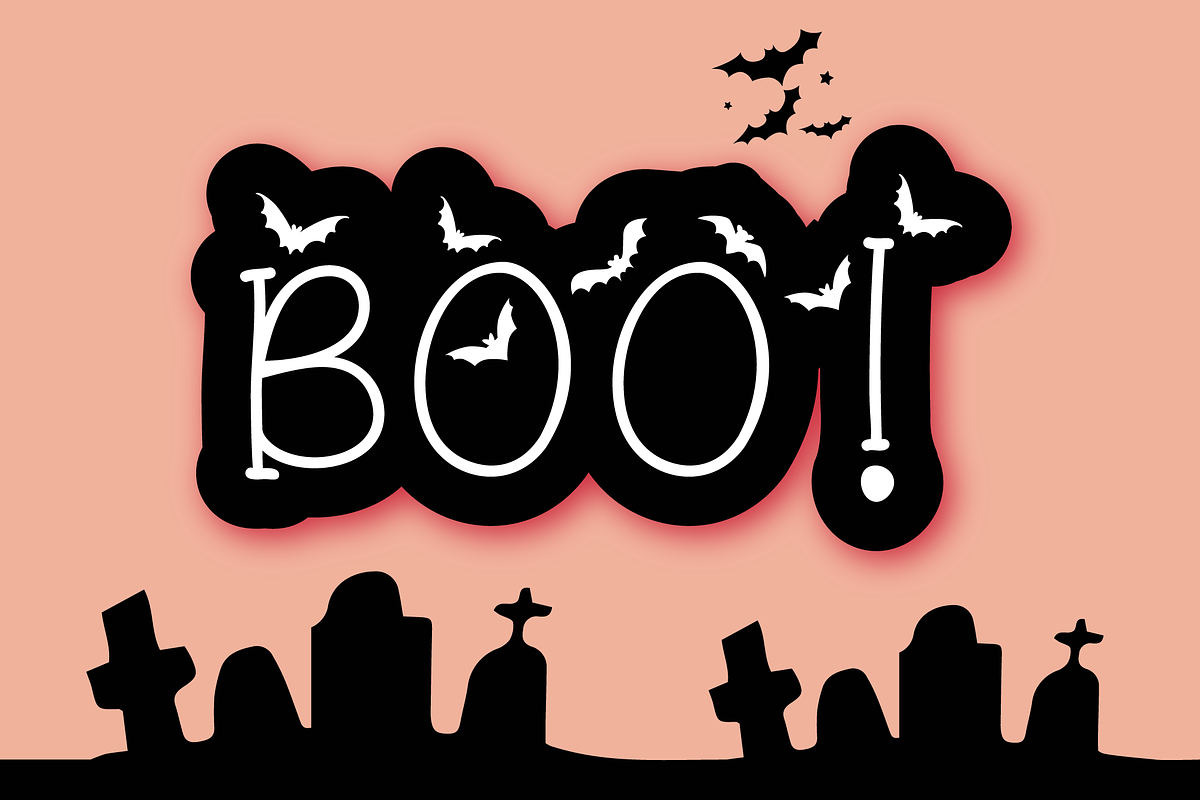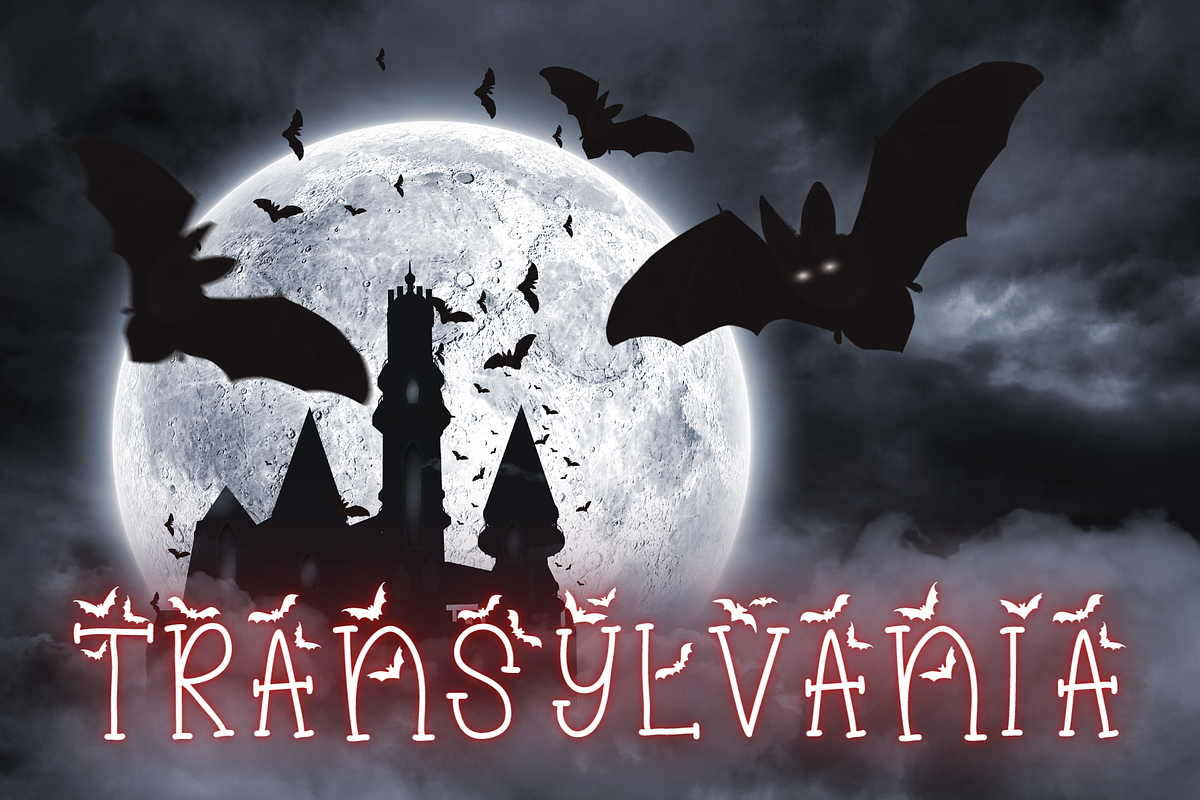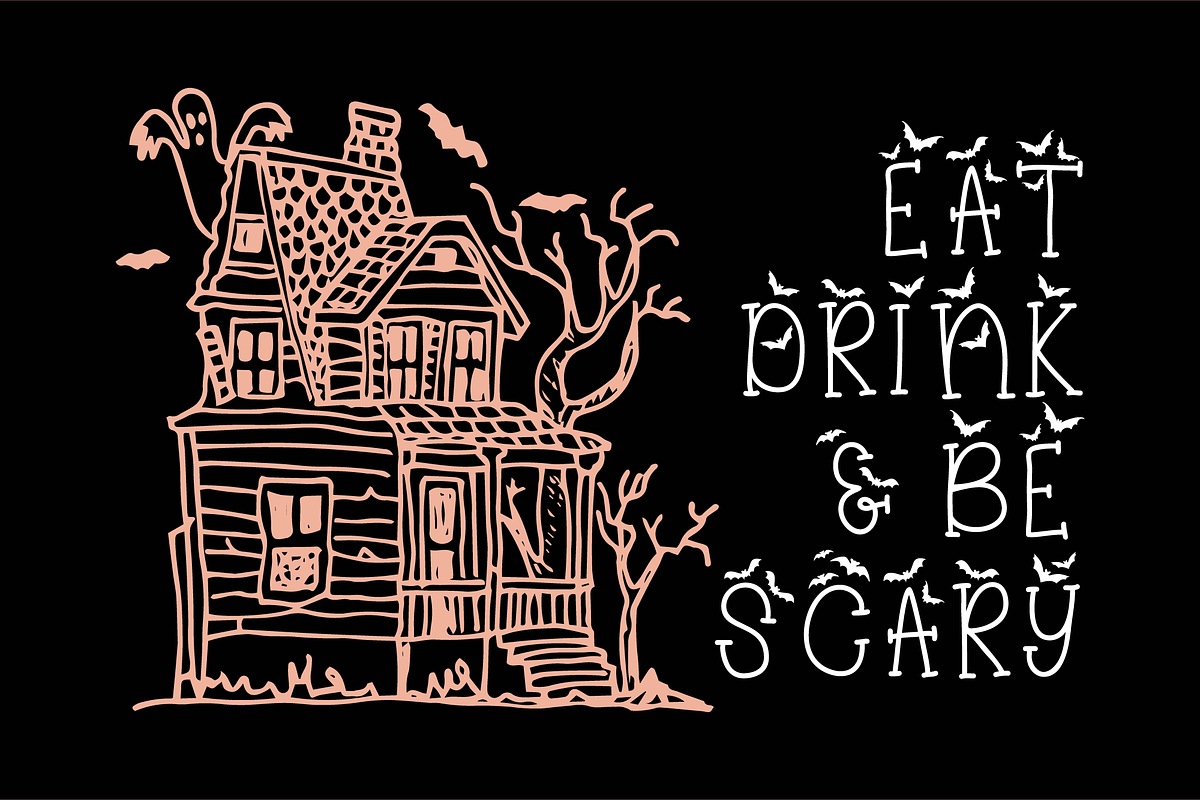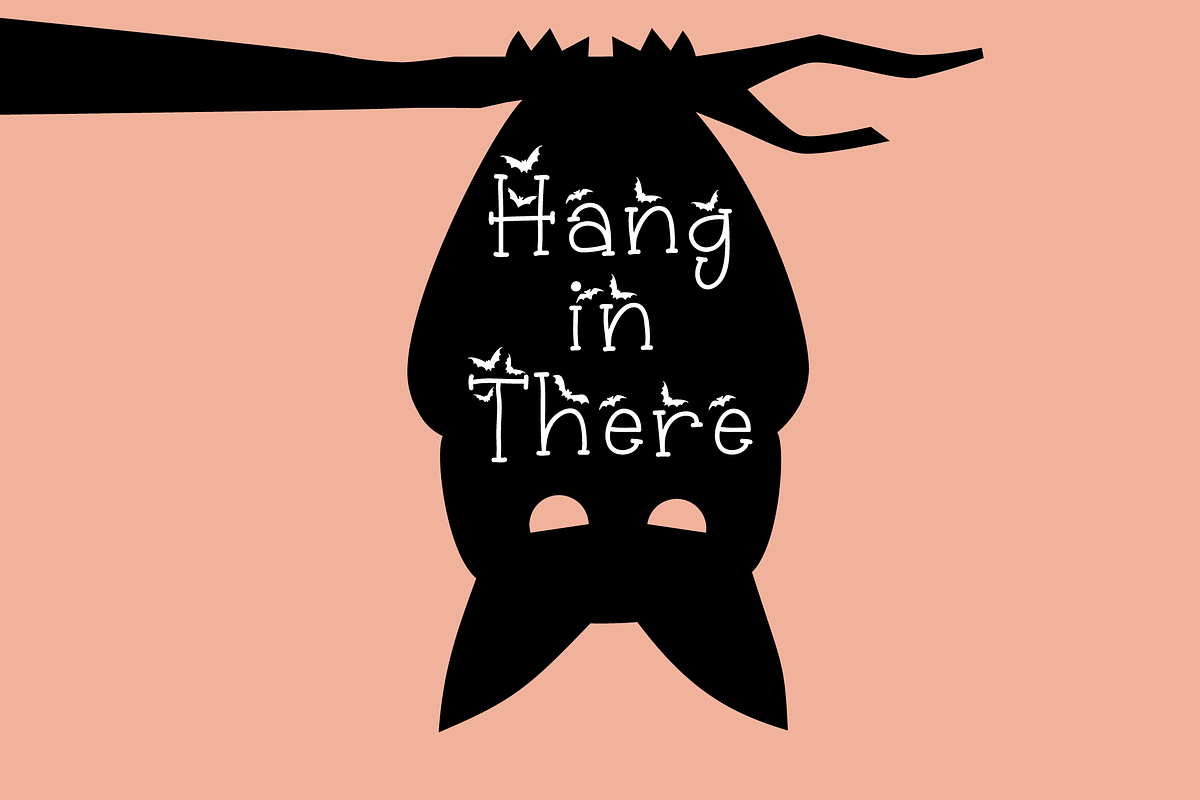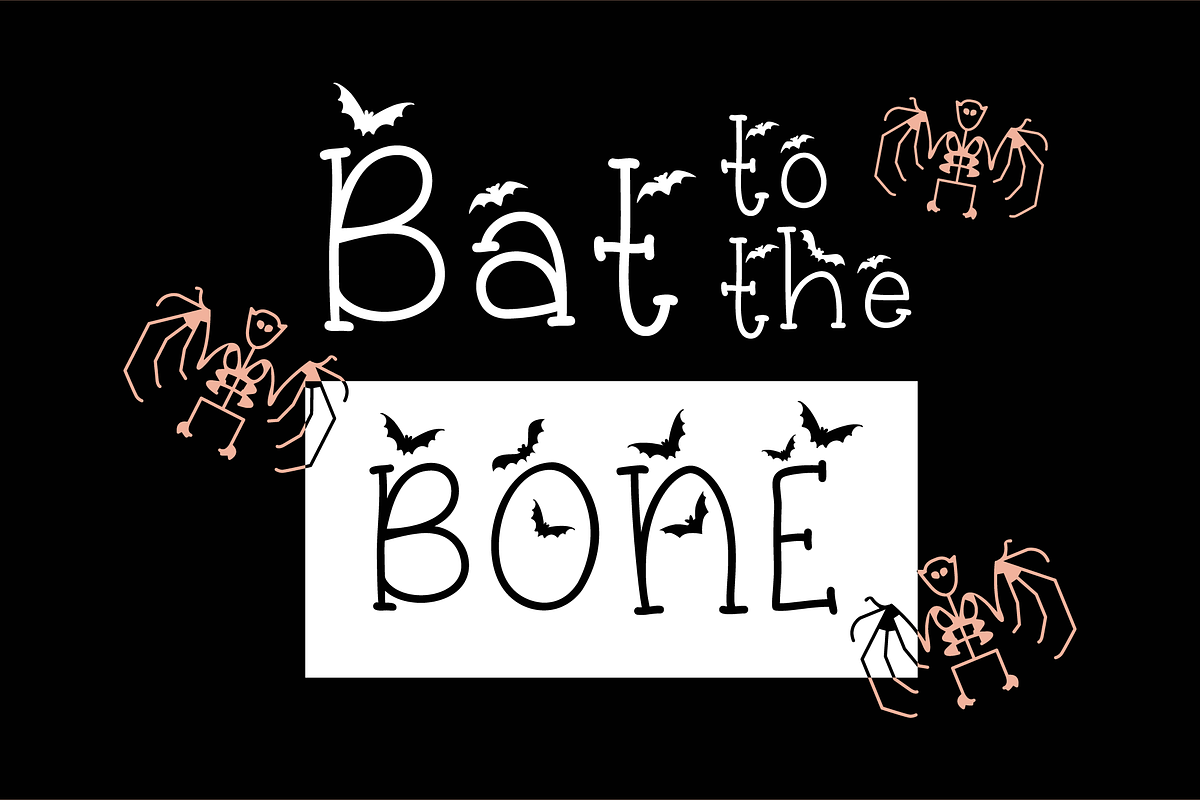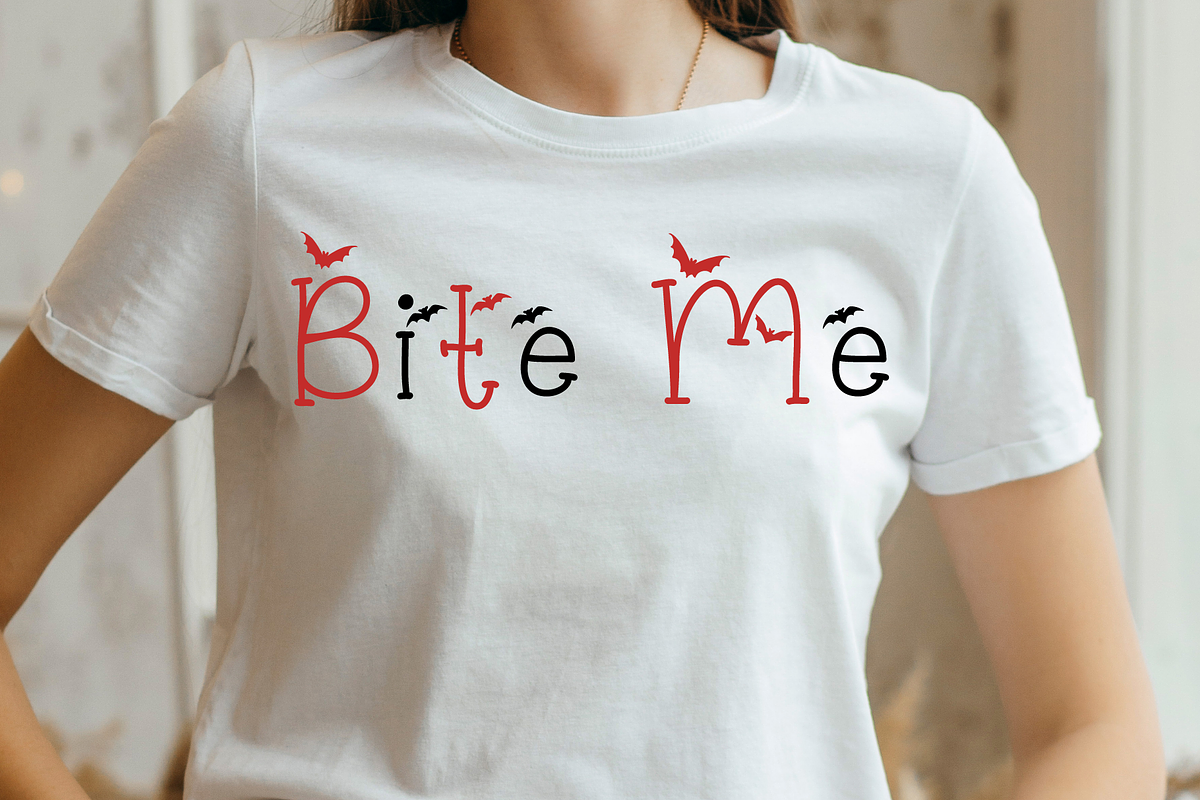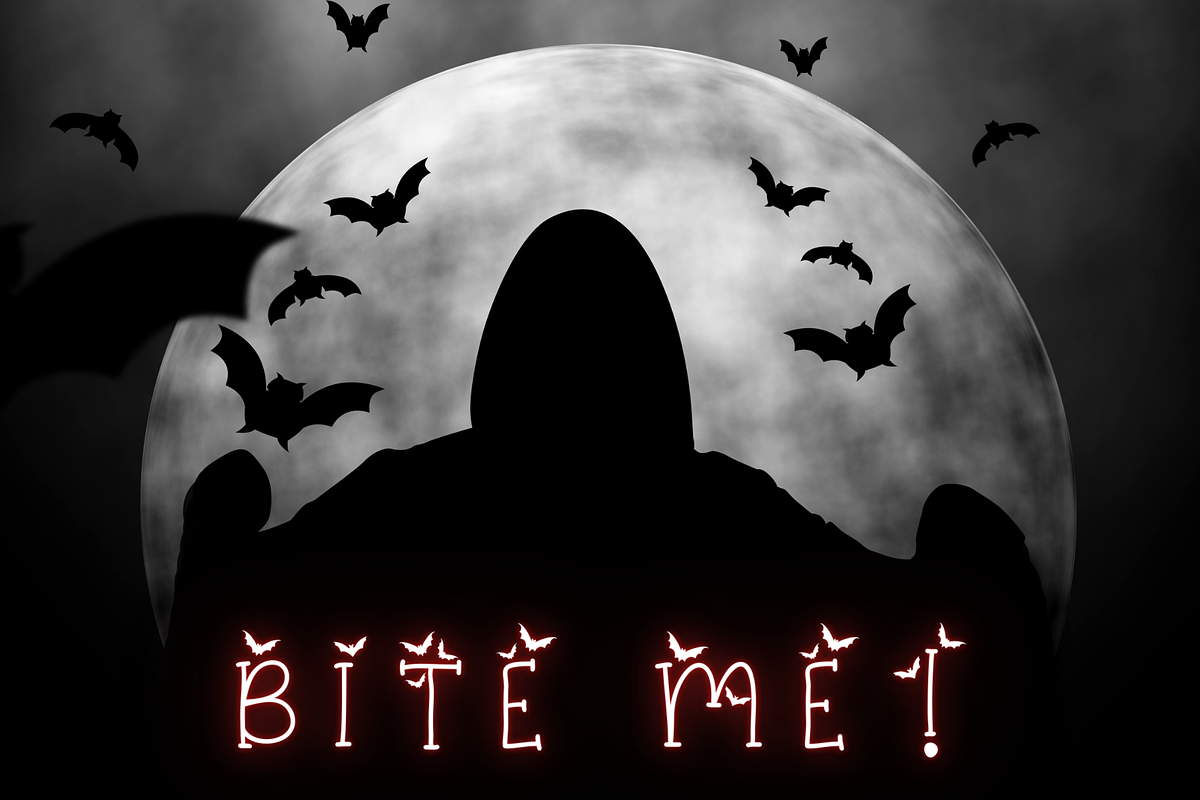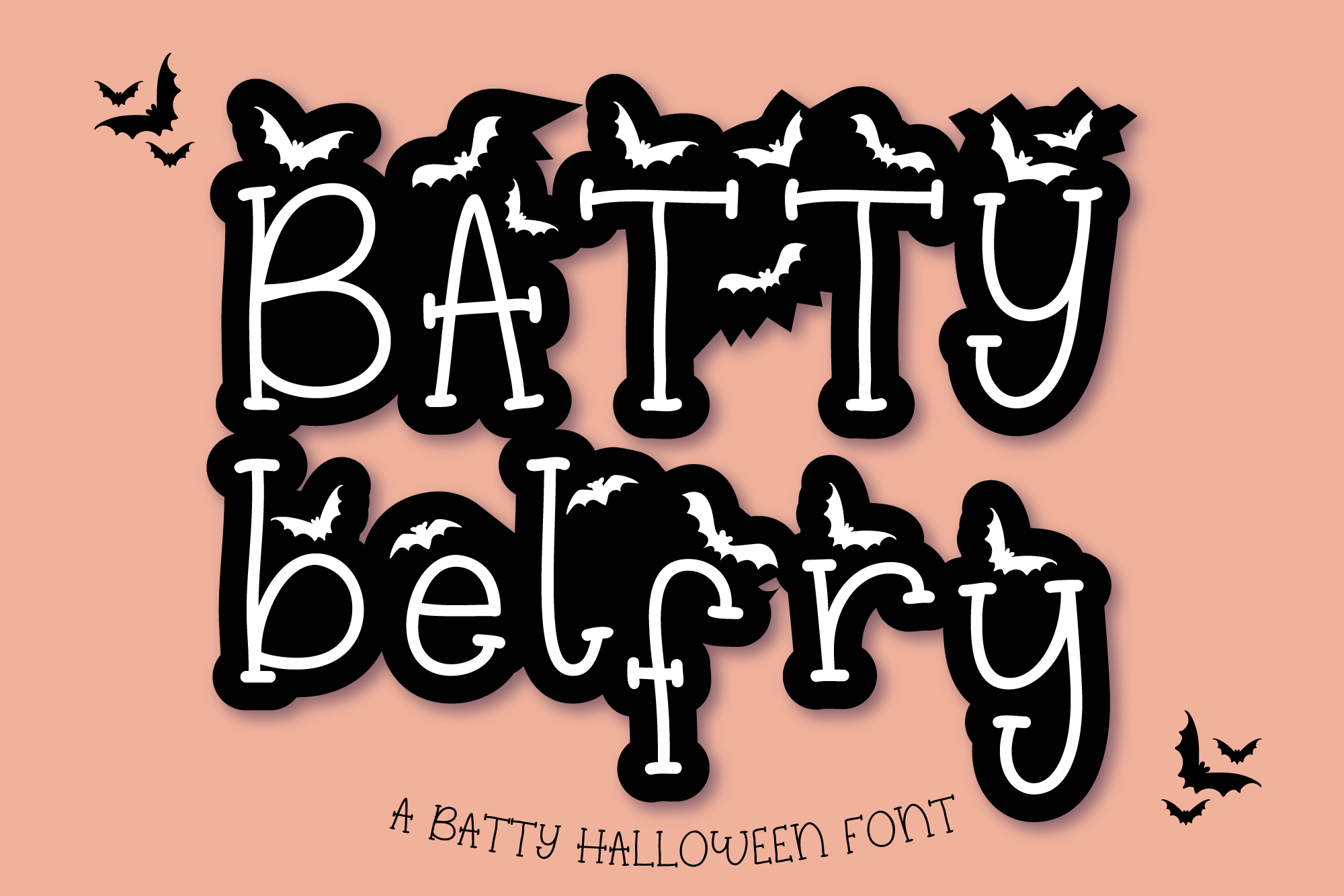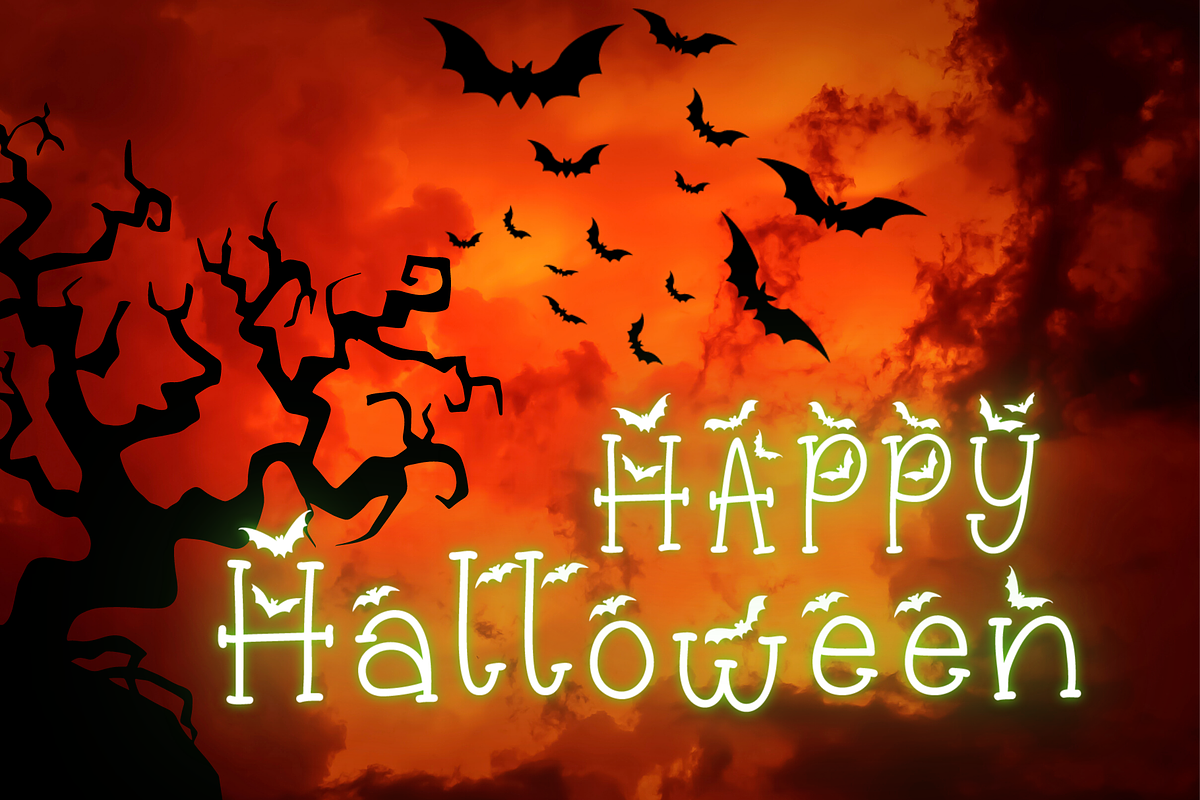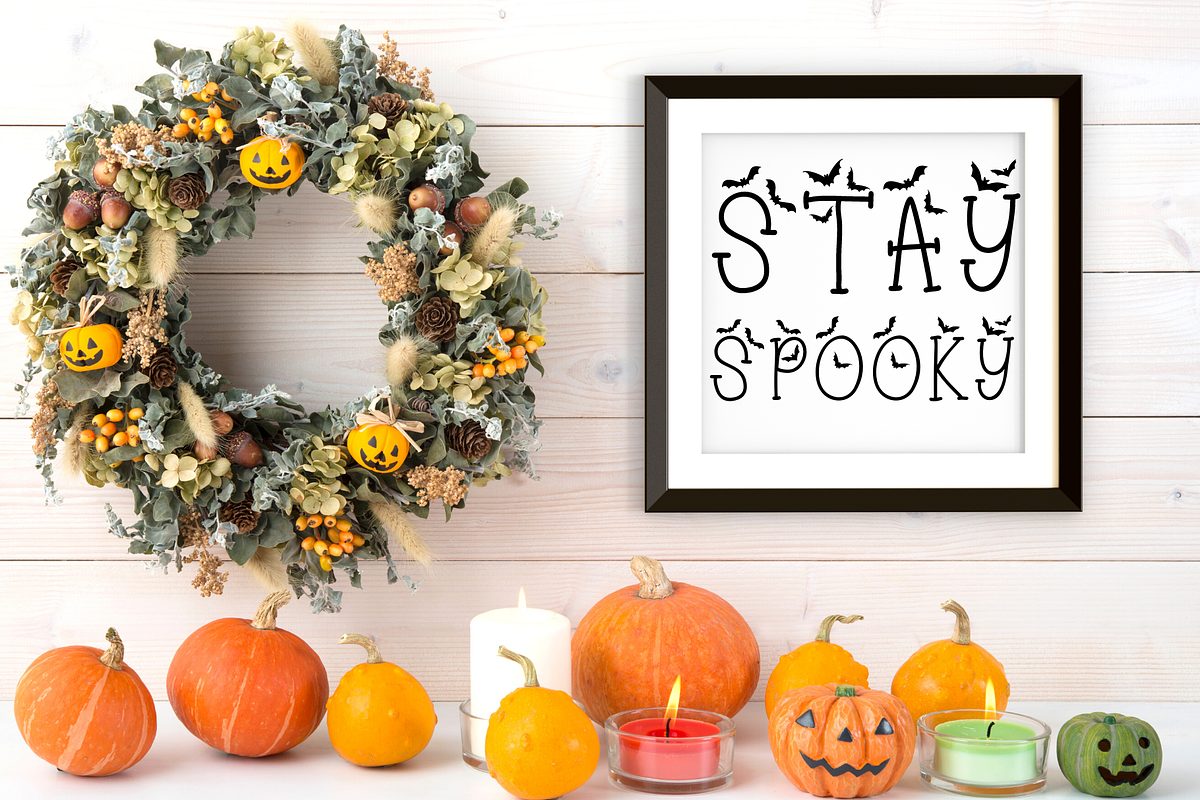
Batty Belfry Halloween Bats Font
A batty halloween opentype font.
Batty Belfry is a halloween font with a fun bats design. Perfect for a wide range of Halloween applications such as party invitations, flyers, banners, and halloween displays.